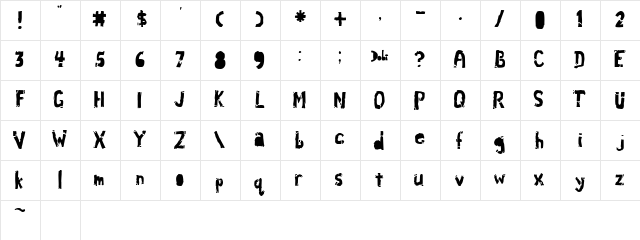
Ass Crack Regular Font Preview
Ass Crack Regular
Design Context for Ass Crack Typeface
Ass Crack is a composed and adaptable typeface that performs quietly and consistently across a wide range of design contexts.